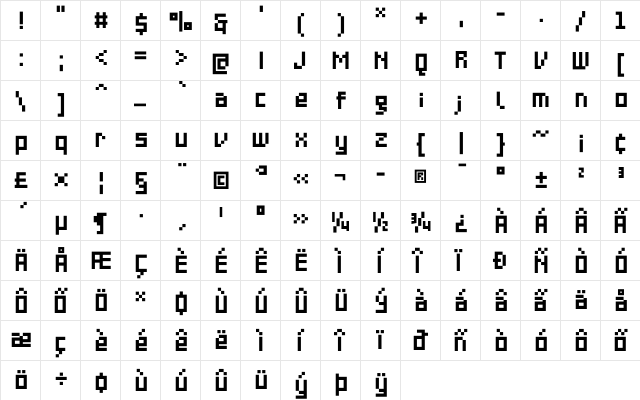
PF Online Three Pro Double
| Foundry | Parachute蠗orldwide |
| Designer | Panos Vassiliou |
Design Context for PF Online Three Pro Typeface
PF Online Three Pro offers clean, dependable letterforms without strong stylistic allegiance, making it a practical choice for designers who need flexibility.